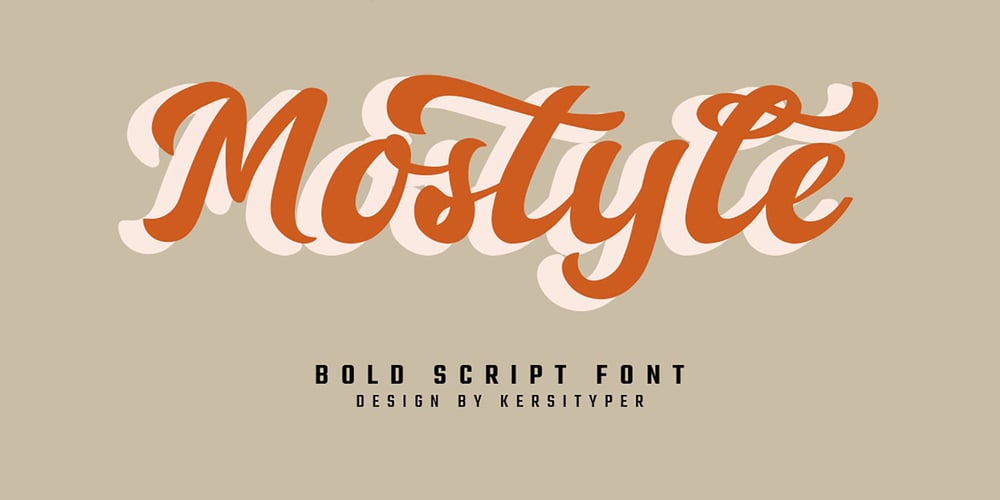
Mostyle
Mostyle font
Mostyle Font Family was designed by Tezar Tantular and published by Keristyper Studio. Mostyle contains 1 styles and family package options. Introducing Mostyle font a Display Retro Script Font. Inspired by retro typography and lettering in the ’70s and ’80s combined with bold typography style. This Font is perfect for vintage and retro design, badges, logos, posters, branding, packaging, signage, and book cover.Multilingual support: Afrikaans, Albanian, Catalan, Danish, Dutch, English, Estonian, French, Finnish, German, Icelandic, Indonesian, Italian, Malay, Norwegian, Portuguese, Spanish, Swedish, Zulu, and many more.What’s Included : Standard & Multilingual glyphs Ligature Works on PC & Mac Simple installations Accessible in Adobe Illustrator, Adobe Photoshop, Adobe InDesign, and even work on Microsoft Word. Hope you enjoy our font!